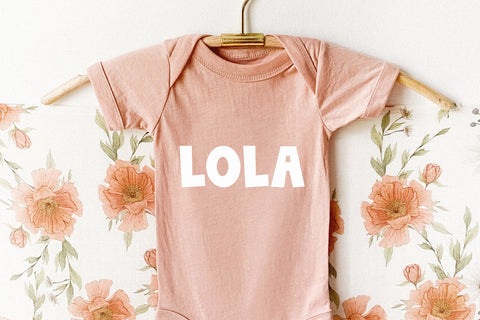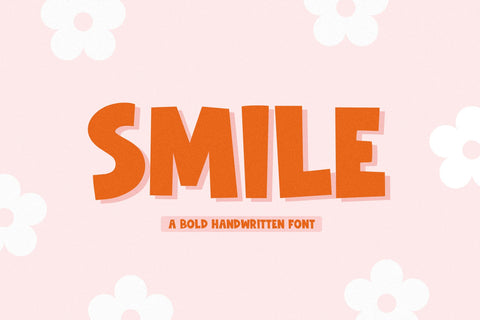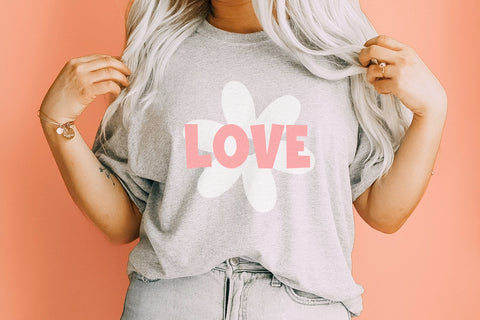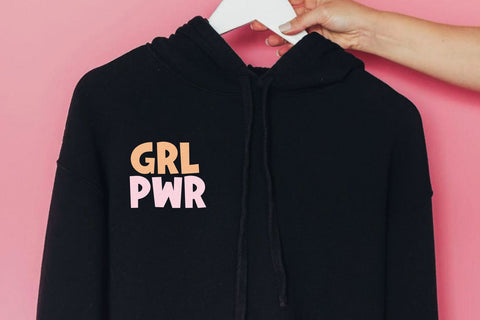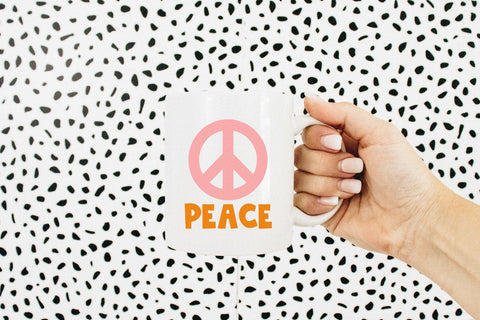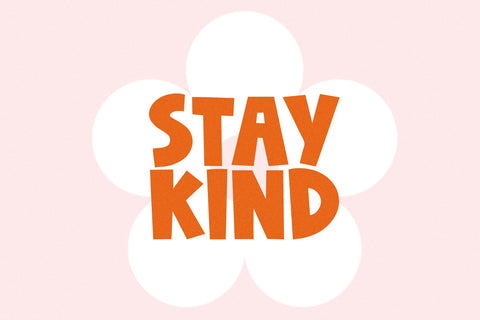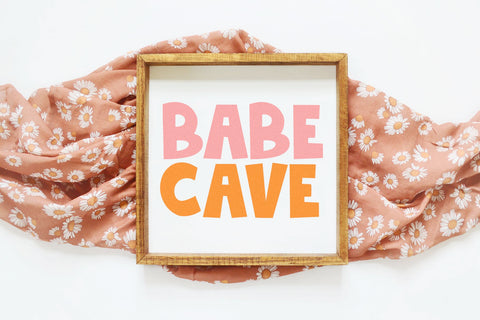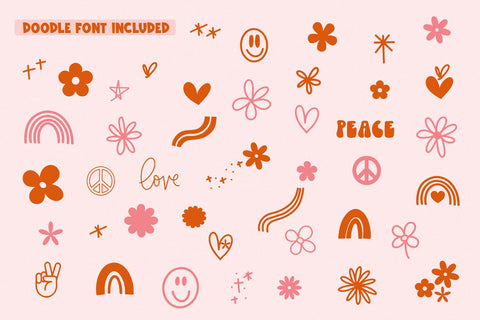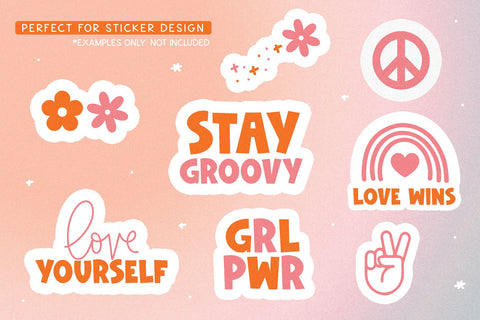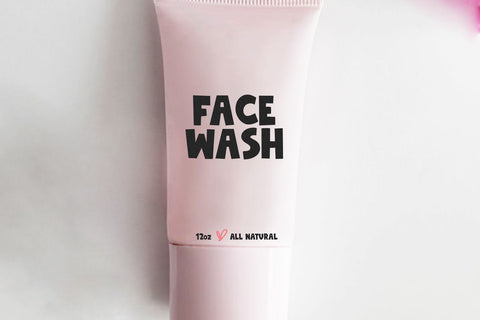
Smile - Handwritten Font with Extras
Smile is a fun handwritten font. It is blocky and perfect for all of your boho or retro designs!
This font duo is perfect for all of your craft projects, branding, logos, shirts, svg designs, retro designs, stickers, procreate and more!